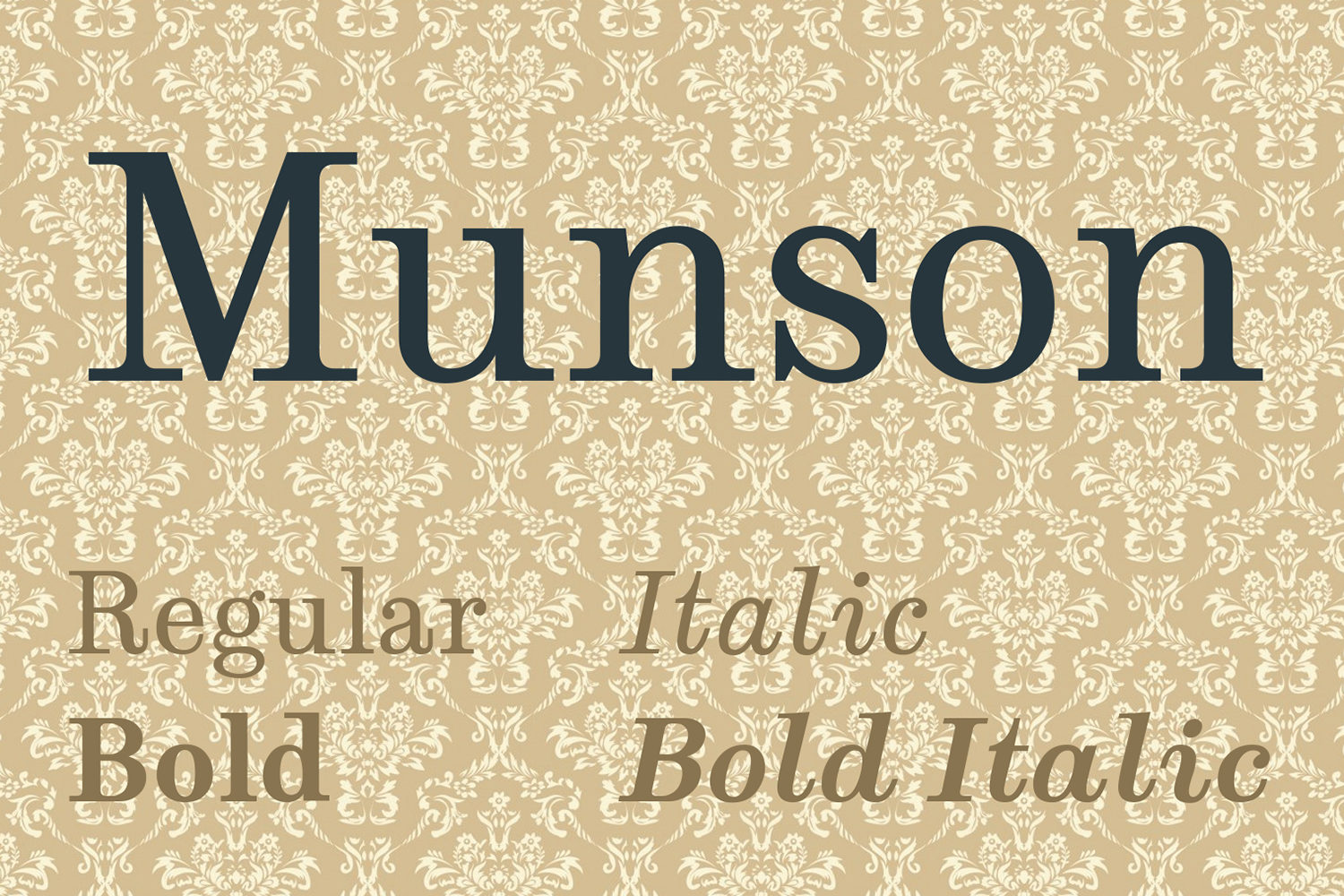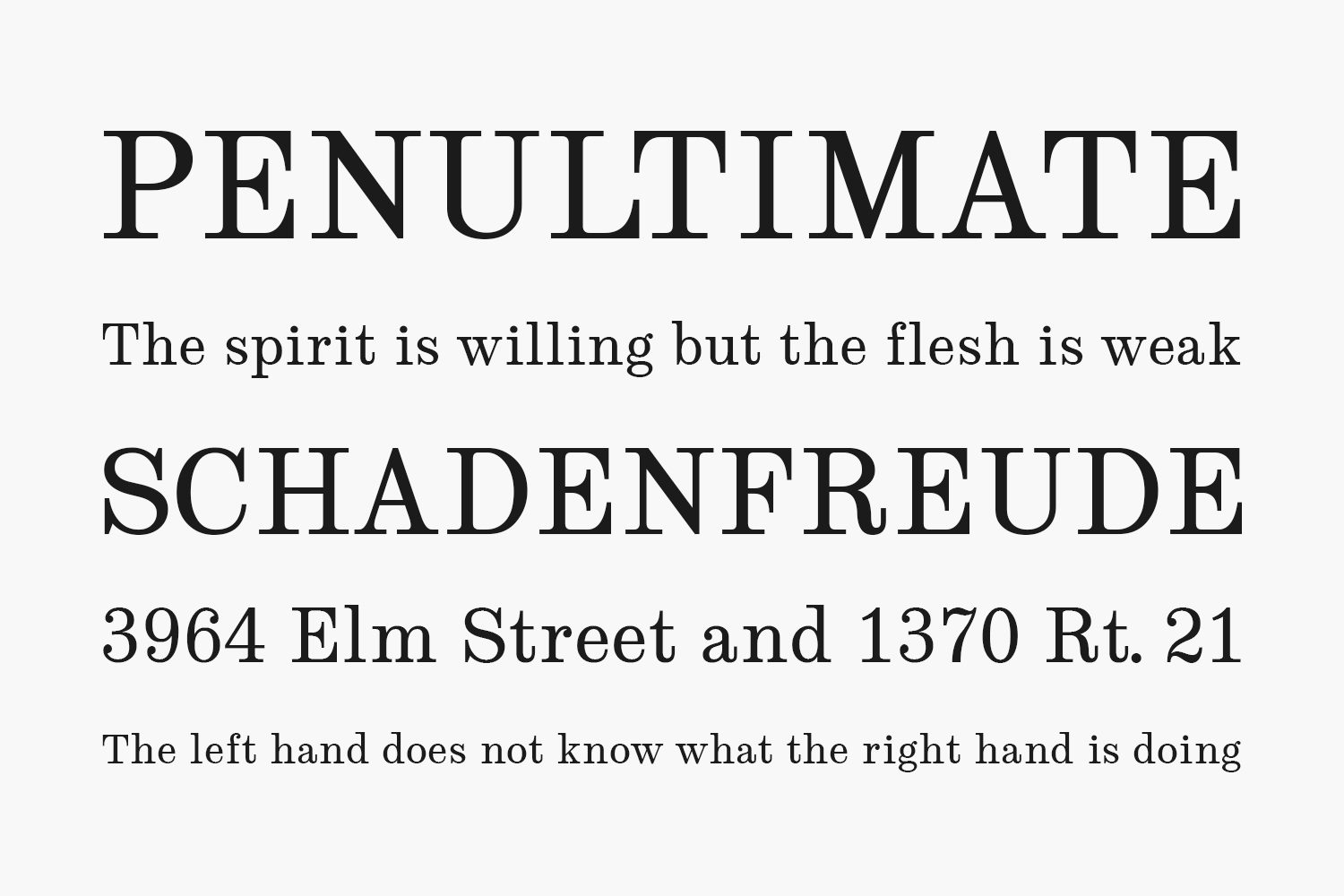
Munson Free Font Family was made around 1815 and was called Consort. It was a bracketed slab serif face with ball terminals where appropriate. It is developed by Paul Miller and is freely distributed under the SIL Open Font License.